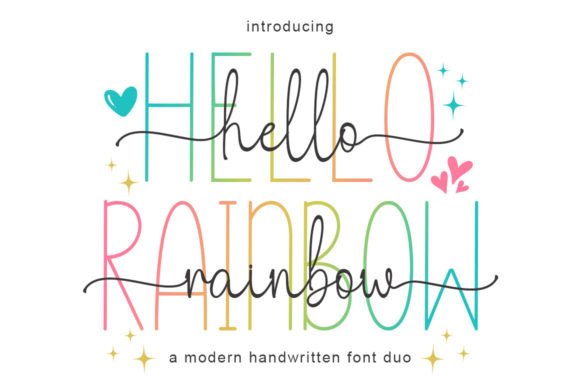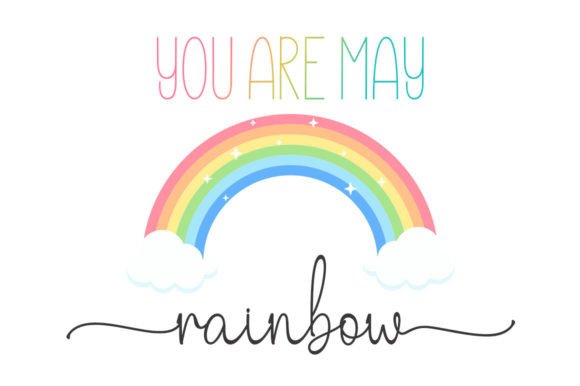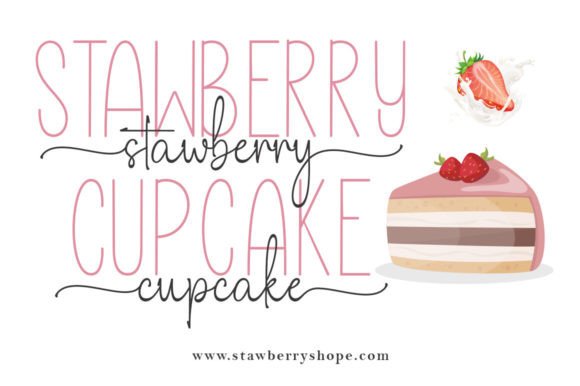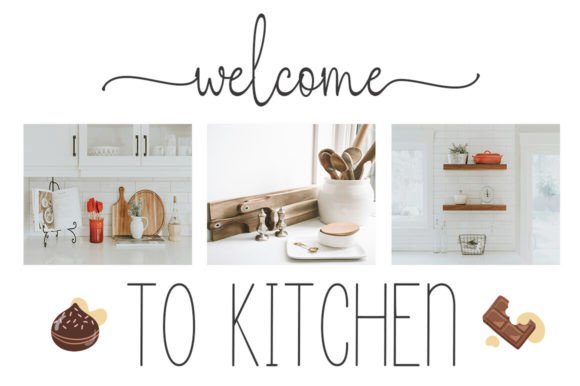
Hello Rainbow Duo Font
Hello Rainbow Duo, a smooth duo font that combines sans serif and script, serves a variety of uses. Whether embellishing a heartfelt greeting card or adorning a catchy title, this stunning typeface brings a romantic touch to every creation. Featuring PUA coding, Hello Rainbow Duo allows easy access to the gamut of glyphs and ligatures, ensuring seamless integration into any design canvas. This font is suitable for all your creations